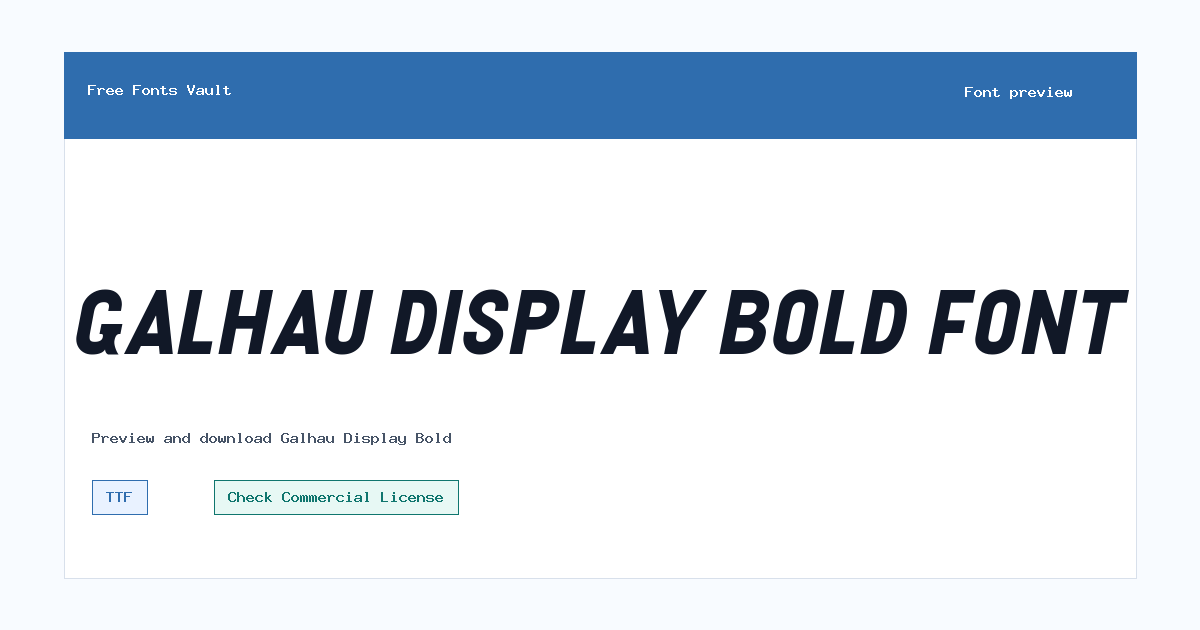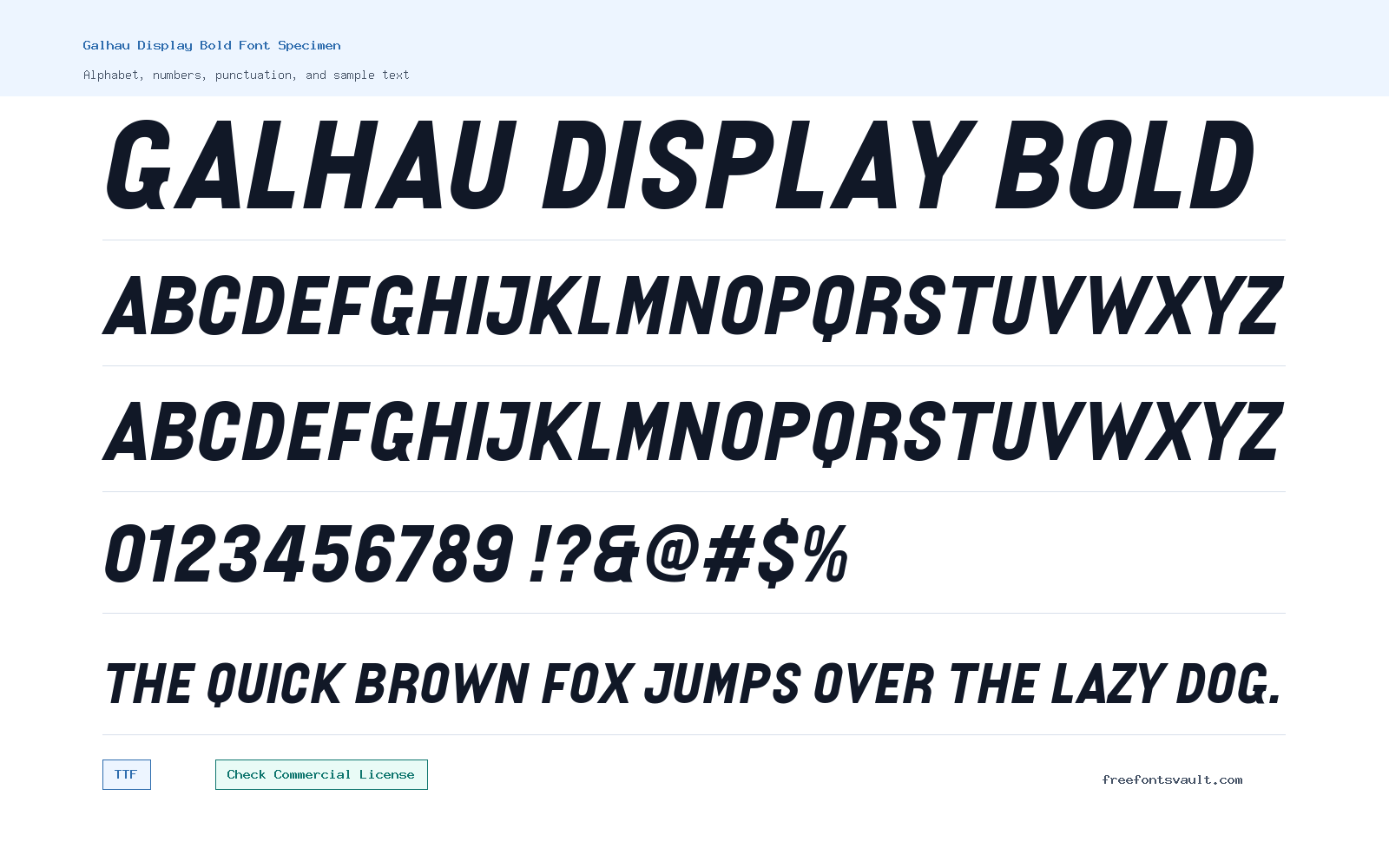
Galhau Display Bold
- Designer cantdealwithtype
Galhau Display Bold is a bold display font from cantdealwithtype, supplied as a TTF file for easy testing in the preview tool.
Galhau Display Bold is best approached as a strong headline font rather than a long-reading text face. The font name and file name point to a bold, slanted display style, so it is most useful when you want type to stand out in a short phrase, title, poster line, thumbnail, or graphic header. Because the available file is a TrueType font, it should be simple to install and test in most design apps that support standard desktop fonts.
Use the preview box to check the exact words you plan to set before downloading. Bold slanted display fonts can look energetic in short text, but they may become harder to read in small sizes or dense paragraphs. Try it with uppercase, lowercase, numbers, and punctuation, then compare it against a calmer text font if your design also needs body copy. For clean results, keep spacing generous and avoid pairing it with another loud display face unless you want a very busy layout.
- Bold display style suited to short, attention-focused text
- Slanted font file, useful for titles with forward motion
- Posters, banners, and title graphics
- YouTube thumbnails or social media headers
- Short logo-style wordmarks where the license allows
- Event flyers, promo cards, and bold display text
Use Galhau Display Bold for short, high-impact text and pair it with a simpler sans serif or serif for longer reading. Test spacing and size carefully, especially if your design will be viewed on mobile screens. Because the selected file is a bold slanted cut, it is strongest when the words need both weight and motion. Use it for action-oriented headlines, sale graphics, banners, or accent text. If the slant makes a long phrase feel tight, shorten the line or switch supporting words to an upright style. This cut can also work well as a contrast style beside the upright Galhau Display files, especially when one word needs extra push.
Is Galhau Display Bold good for body text?
It is better for short display text. For paragraphs, pair it with a simpler font that is easier to read at small sizes.